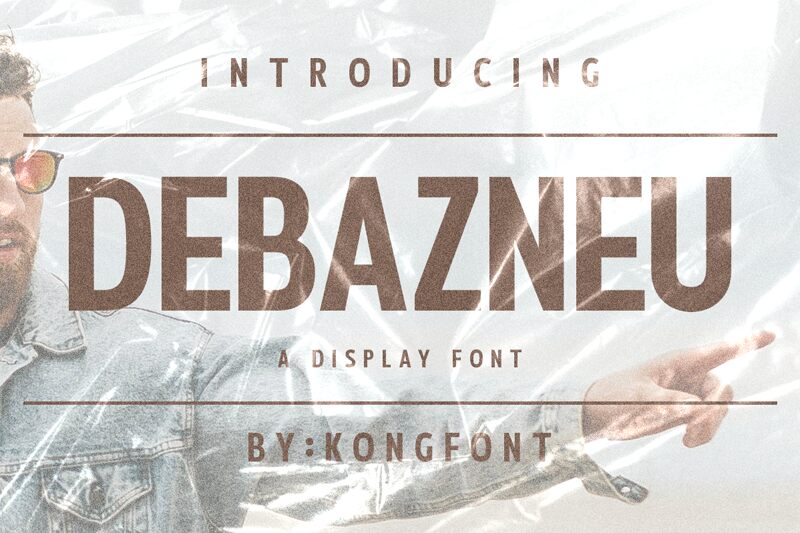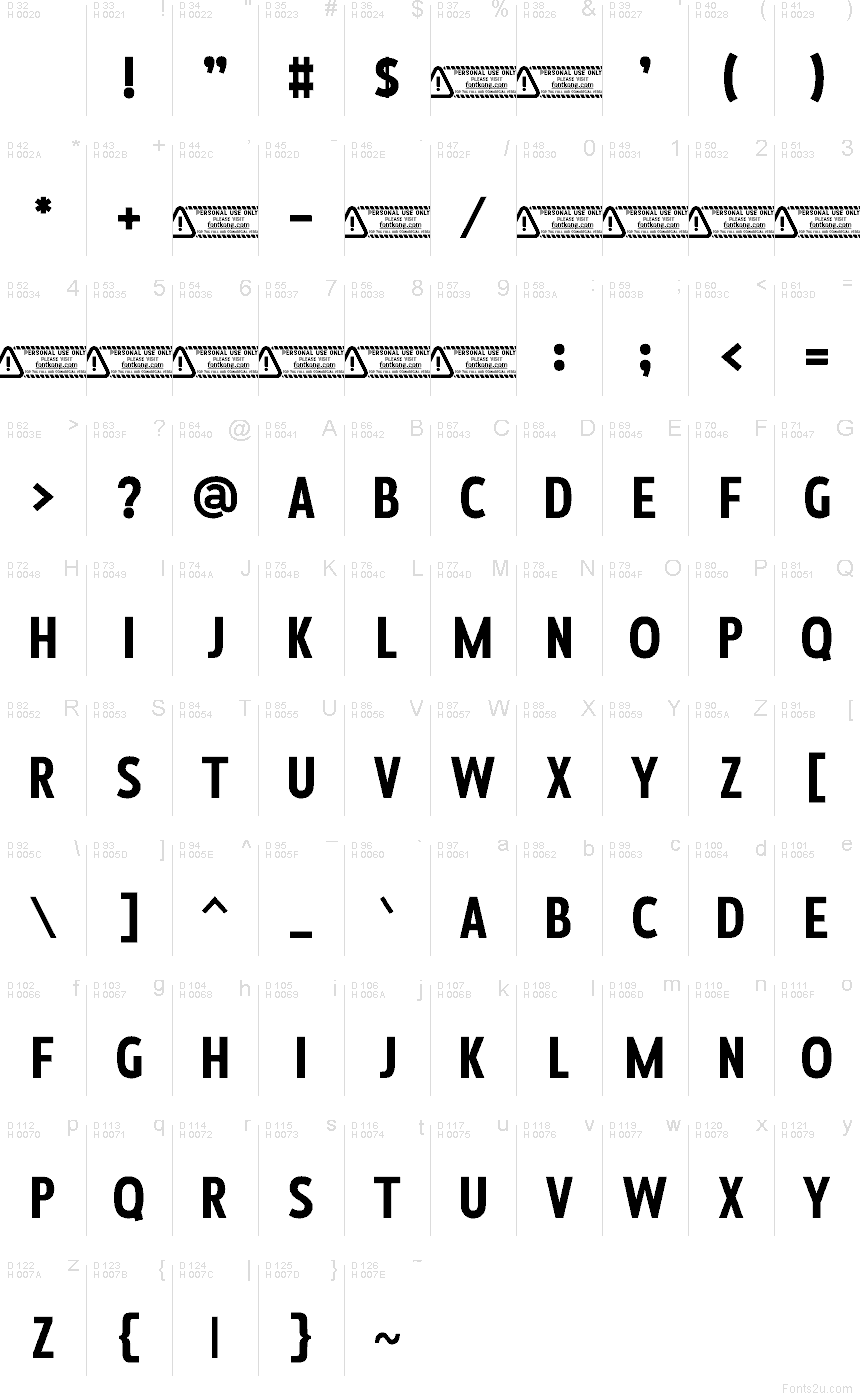
Debaznue font by Kong Font is a free bold sans serif typeface with a tough, compressed stance that hits like a stamp. The letters feel dense and muscular, with straight sides and tight spacing that pack words into a strong, unified block. It has an industrial, all-caps energy that makes every title feel urgent and unmissable.
Using Debaznue, headlines lock up cleanly on posters, sports graphics, gaming covers, YouTube thumbnails, urban flyers, and bold branding systems. This free font thrives at large sizes where its solid shapes and blunt edges can really shout. Pair it with a light, open sans serif for body text to contrast Debaznue’s heavy, compact presence while keeping the overall look cohesive.